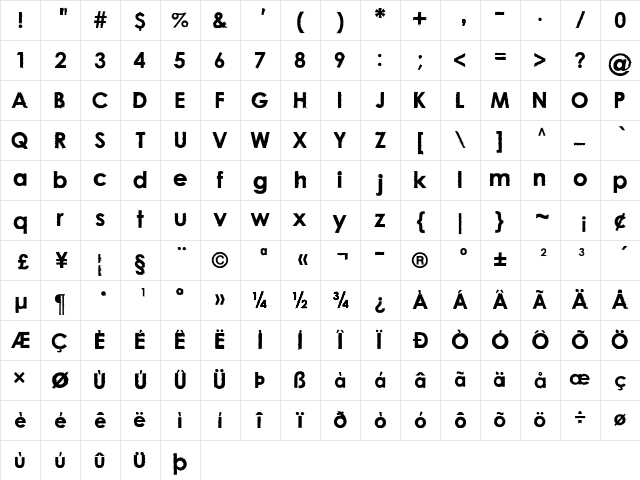
Complete nu-century-gothic Bold glyph index. Displaying only characters natively supported by nu-century-gothic Bold font.
nu-century-gothic takes a clean, functional approach - its unadorned letterforms prioritise legibility and work reliably across screen and print environments. Its bold stroke weight gives it real presence on the page.
Font Pairing: Use nu-century-gothic for headlines alongside a lighter-weight sans or serif for body copy to establish clear visual hierarchy.
Pro Tip: Use nu-century-gothic for UI labels, navigation, and short-form body copy where clean legibility is the priority.